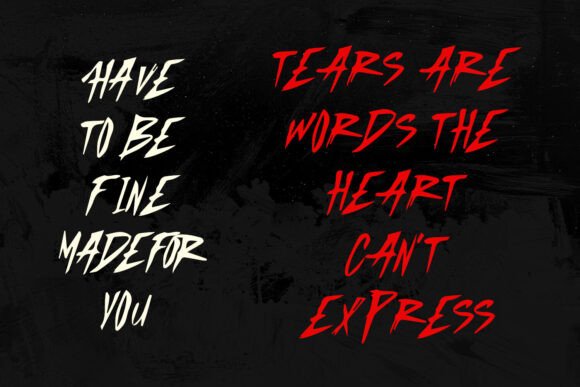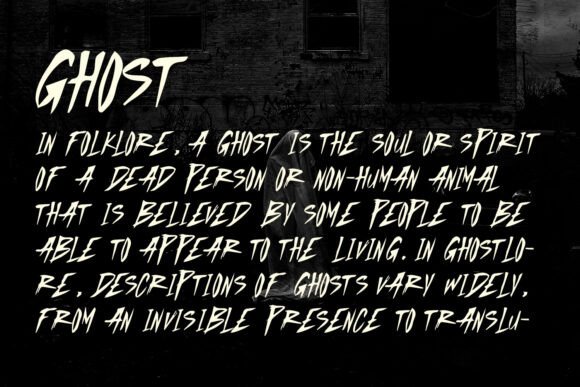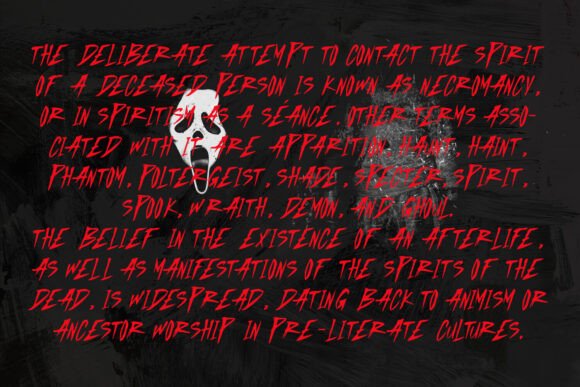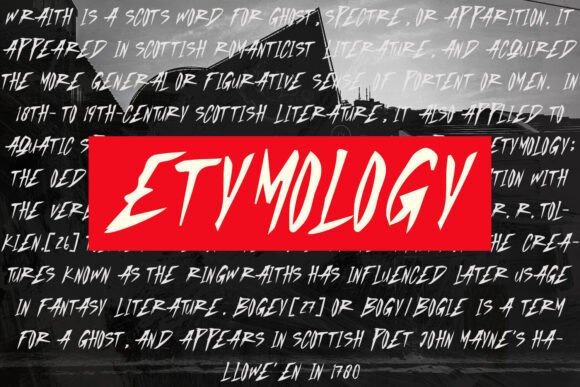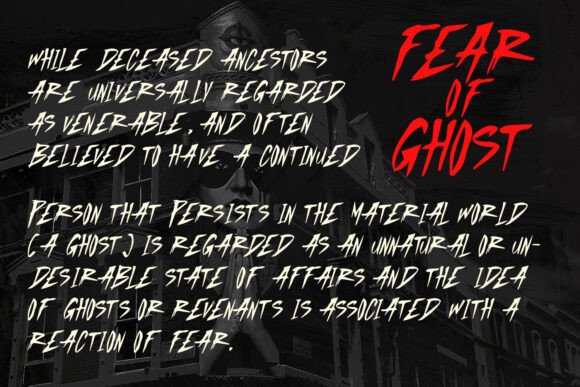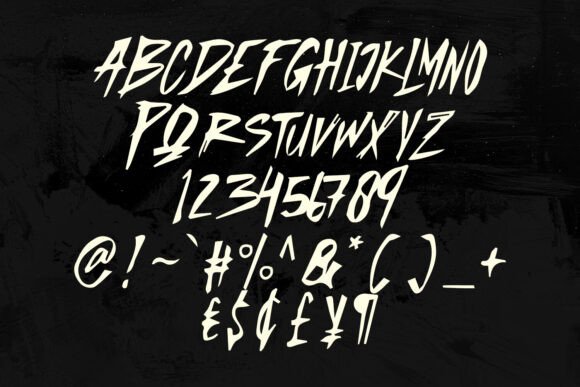
Introduction to Horeg Ejava Font
Horeg Ejawa is a fierce and energetic brush typeface with razor-sharp edges and rebellious flair.
Its dynamic strokes and raw texture scream attitude, making it the perfect choice for punk rock posters, streetwear branding, edgy album covers, and bold social media graphics This font doesnโt whisper โ it shouts with style.